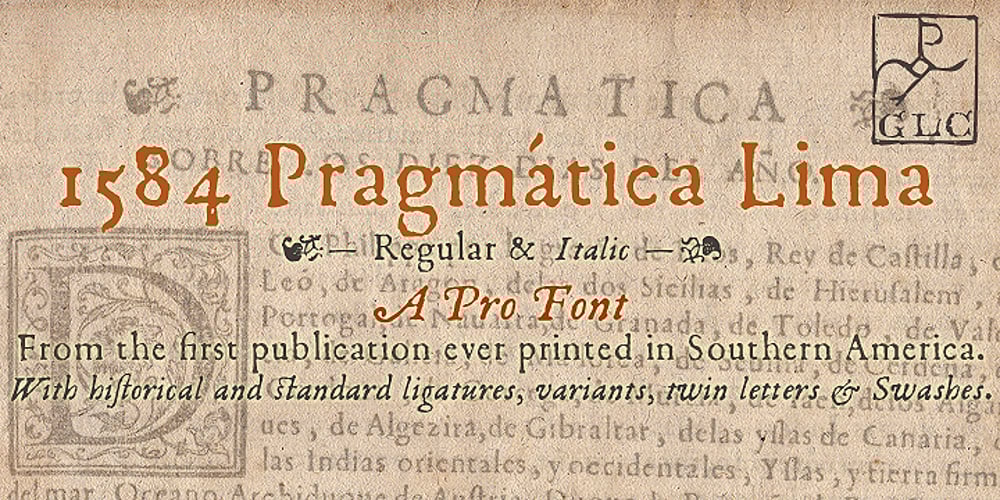
1584 Pragmatica Lima Font Family was designed by published by GLC. 1584 Pragmatica Lima contains 2 styles and family package options. This family was created from the set of font faces used in Lima (Peru) by Antonio Ricardo in 1584 for the first publication ever printed in Southern America: a four-page leaflet in Spanish entitled “Pragm·tica sanciÛn” with information about the new Georgian calendar of 1582 which had not yet been communicated to the colonies. In our two styles (Regular & Italic), font faces, kernings and spacing are as close as possible to the original. This Pro font covers Western, Eastern and Central European languages (including Celtic), Baltic and Turkish, with standard and “long s” ligatures in each of the two styles. A,B,D,E,F,M,N,P,R,V,W swashed capitals in the italic style.